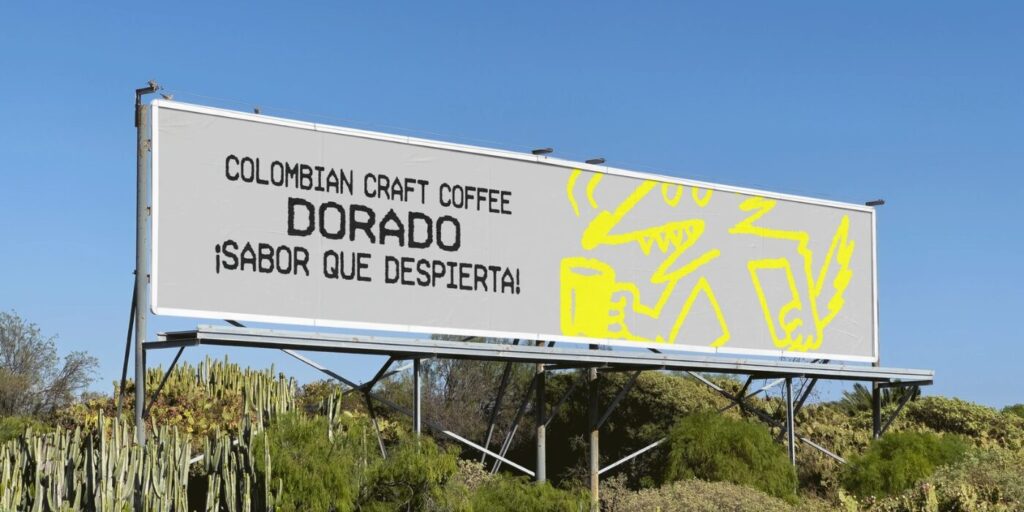
Dear Amigos, can a typeface be quirky, sophisticated, great at acrobatics, and variable simultaneously? Meet the Zanco Font Family, In-House International’s latest creation. Designed by Alexander Wright and developed by Rodrigo Fuenzalida, Zanco gets its name from its distinctive shape, inspired by the zancos (stilts) acrobats use to perform, giving them impressive height—much like the funky long legs that characterize this typeface. Just like those performers, Zanco’s character overflows with individuality.
Zanco is a variable typeface that comes in several weights, each more delightful than the other. It’s always tall, graceful, and quirky, but always captivating. This variable display typeface plays with contrasts, blending elegance and awkwardness, all flavoured with an unmistakable positivity.
“Perfect for brand identities with heart, packaging, and genuine, effortless messaging. Posters, billboards, and motion graphics that fly off the screen.”
—In-House International
The Zanco font family is perfect for brands that want to evoke playfulness while staying fresh and modern—a typeface created for memorable brands. Whether you’re designing outstanding packaging, crafting eye-catching billboards, or animating graphics, Zanco’s versatility shines through. It’s both relaxed and versatile. It will make your message stand out, just like those daring acrobats on their stilts.
In-House International, the creative agency behind the Zanco font family, operates out of Austin, Texas, and Barcelona, Spain. They’re known for their audacious and bold approach to branding, partnering with clients ready to unlock their potential and build vibrant brands. Their work is always guided by curiosity and care, and Zanco is no exception.